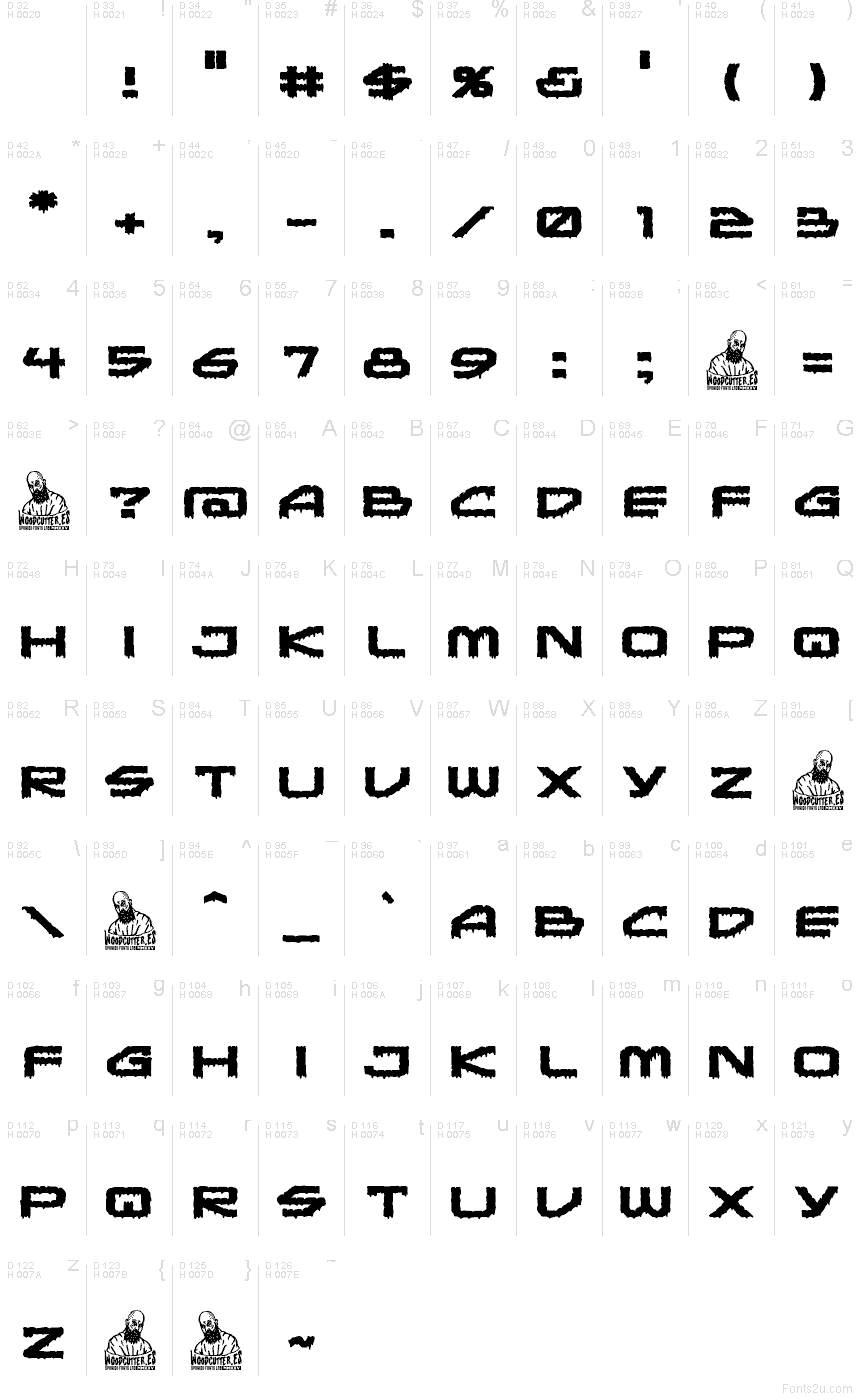
Wine Robot Black
Wine Robot Black font by Woodcutter is a free scary display typeface that looks like it’s been dragged through an abandoned lab. Its jagged silhouettes, dripping edges, and blocky, mechanical proportions mash gore with glitchy tech, giving every word the feel of a corrupted warning sign. The letters stack closely, forming dense, inky walls of text that grab attention from across the room and don’t let go.
Using Wine Robot Black, this free font shines on horror movie posters, sci‑fi game titles, Halloween flyers, haunted house signage, metal band logos, and eerie YouTube thumbnails. Set it large for titles and pair it with a clean, neutral sans serif for body copy to keep the chaos readable. The Wine Robot family’s heavy texture makes each word feel like part of a grimy, industrial nightmare.